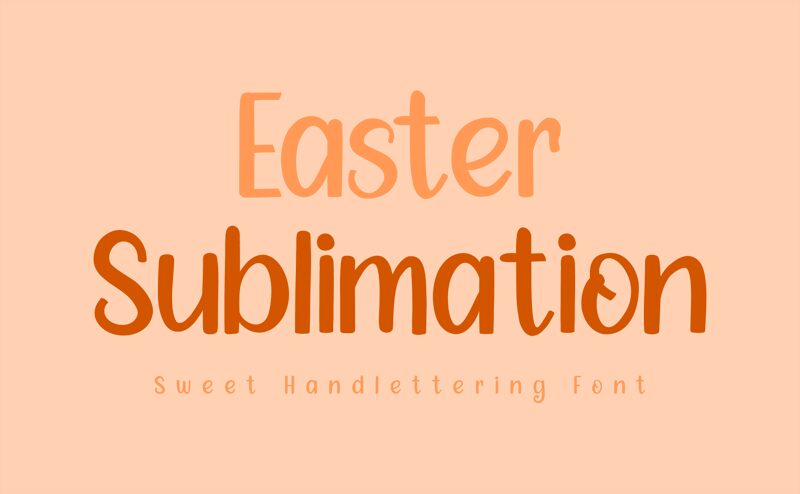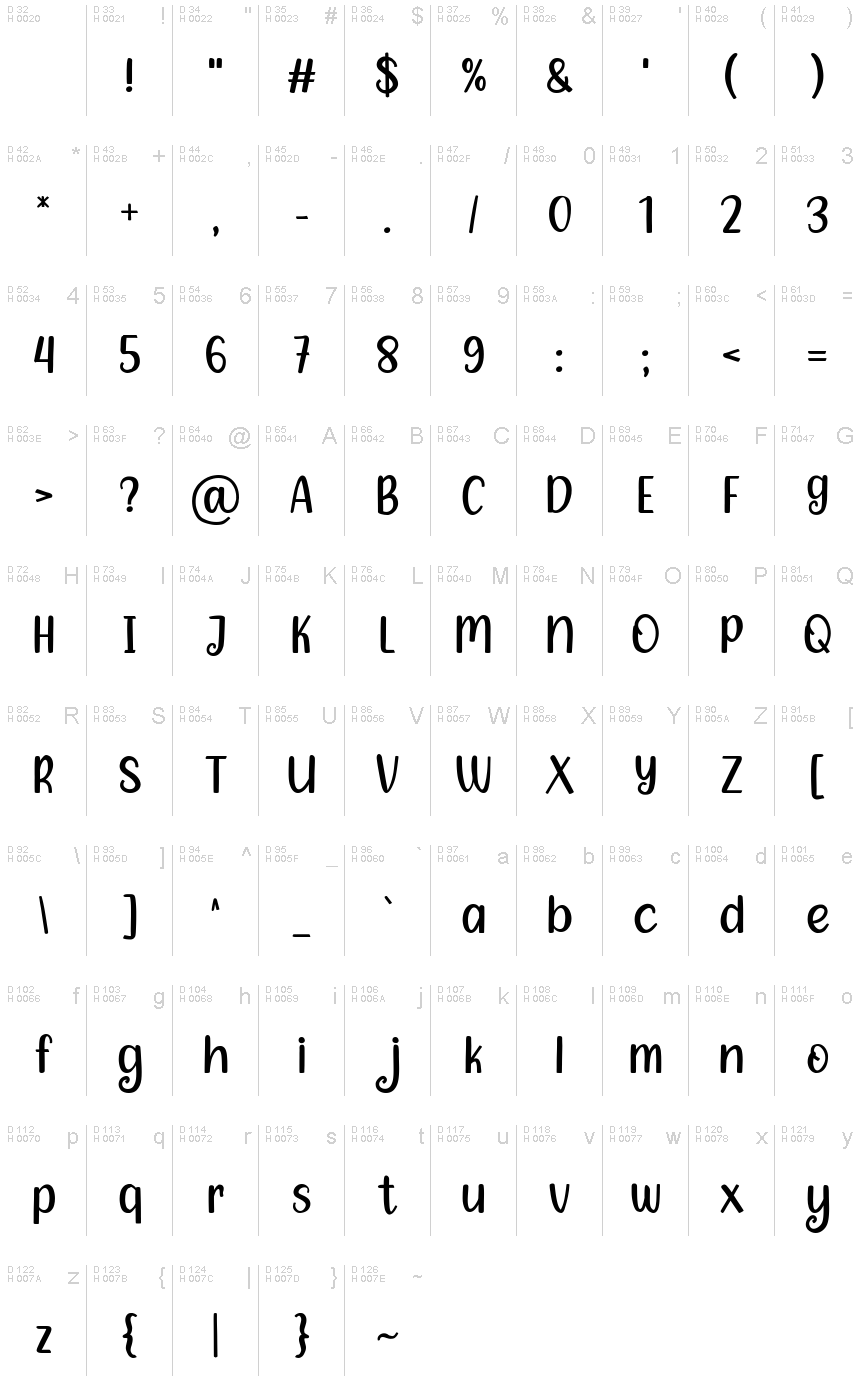
Easter Sublimation, a whimsical handwritten font created by Goodrichees, captivates with its playful yet elegant charm. Featuring a delicate script with graceful flourishes, this font exudes a sense of effortless sophistication. The organic, hand-crafted strokes lend a touch of warmth and authenticity, making it ideal for a wide range of design applications that call for a touch of artistry and personality.
The versatility of Easter Sublimation shines through its ability to seamlessly blend into various design contexts. Its adaptability makes it a suitable choice for branding, packaging, invitations, and promotional materials where a touch of artistry and personalization is desired. The font's inviting and approachable nature also lends itself well to projects aimed at capturing the essence of spring, Easter celebrations, or any design that seeks to evoke a sense of whimsy and charm.